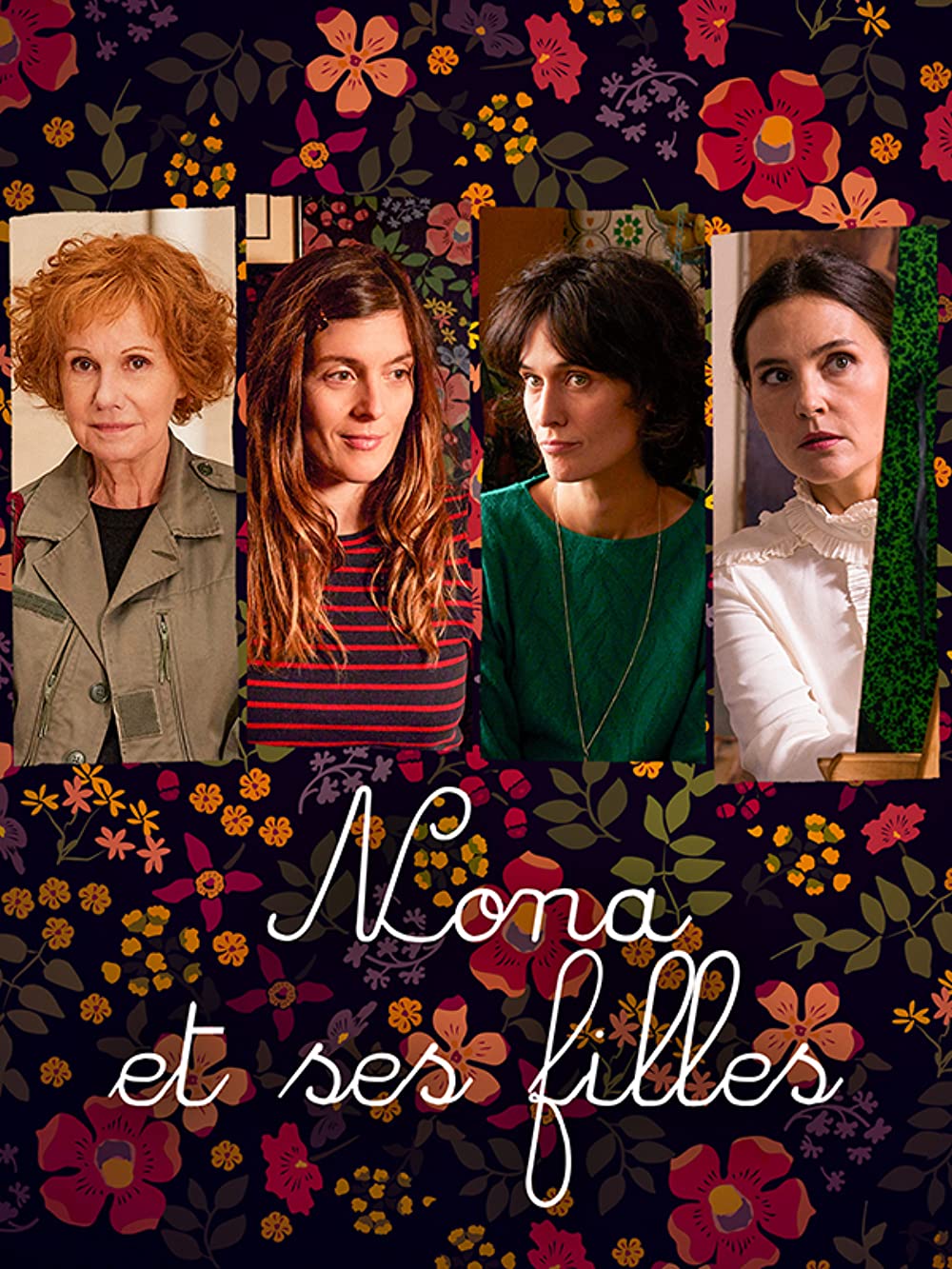
Nona and Her Daughters Font
Fonts in UseNona and Her Daughters is a French comedy-drama television series created by Valérie Donzelli and Clémence Madeleine-Perdrillat that follows the life of Nona, a 70-year-old woman, and her four adult daughters as they navigate family relationships, love, and career in Paris.
The TV series' title features an italicized variant of CrayonL, a member of the Crayon, Plume, Seyes font family. The font family, created by C. Verchery, includes 14 upright script fonts that are available for free use, both commercially and personally.